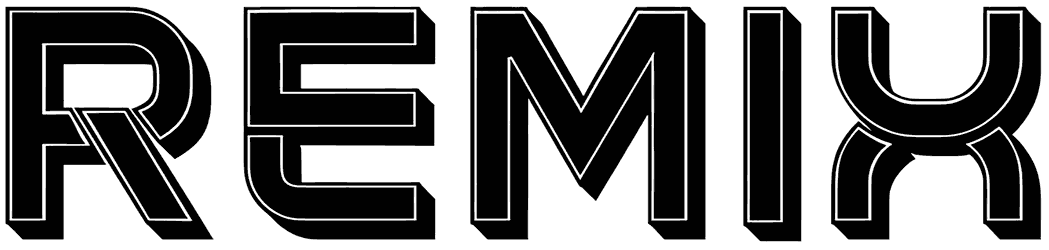
Remix Font
Remix is a science fiction font that can help you design titles with a futuristic feel. This font has only uppercase letters and numbers, which has a stylish and sophisticated look and is usually seen in the logos of technology companies or brochures of technical events.
This futuristic font has a shiny line around each letter that makes it so bright in neon designs. Remix also has strong letters with special curves that draw everyone’s attention to your projects.